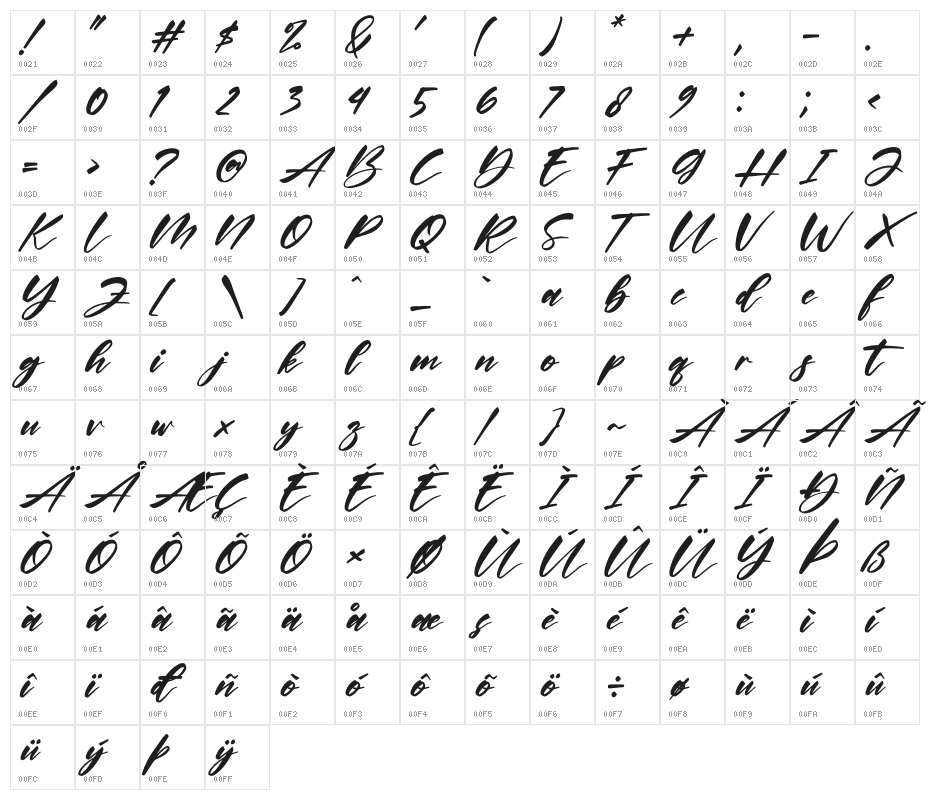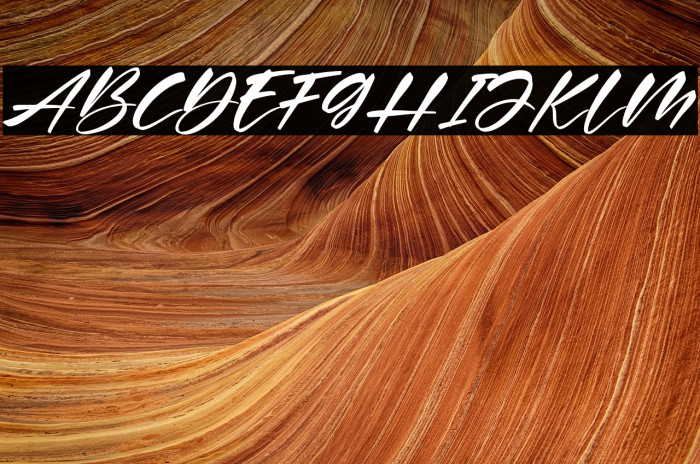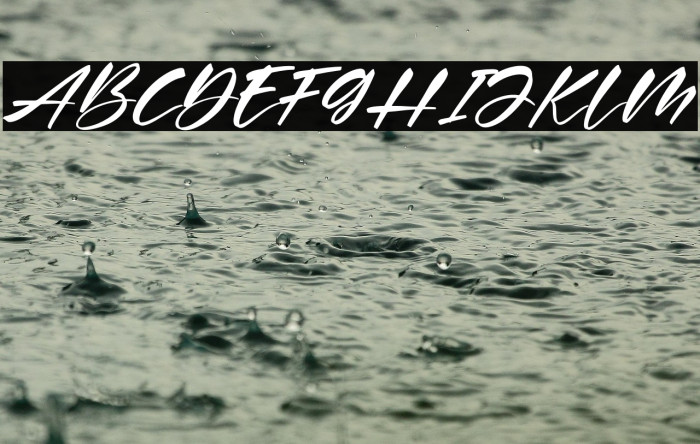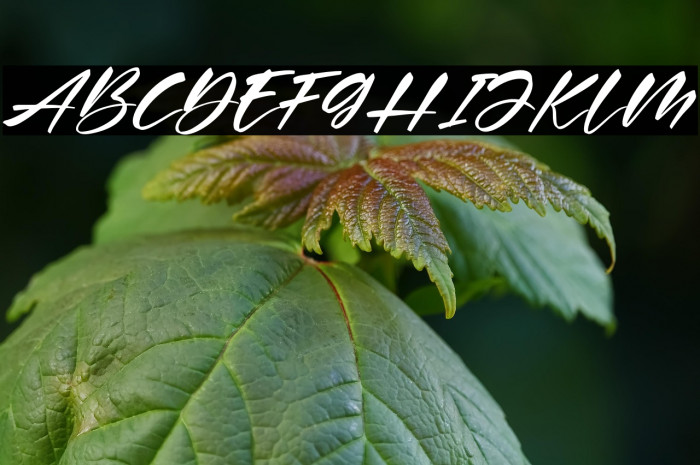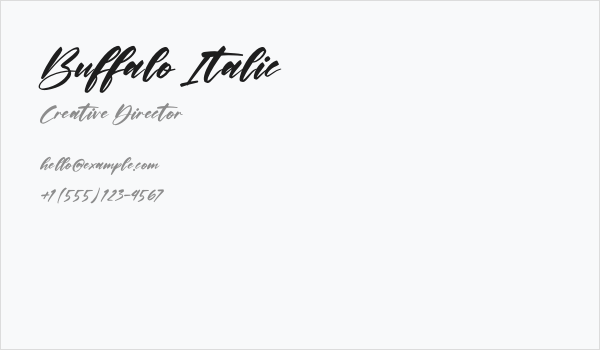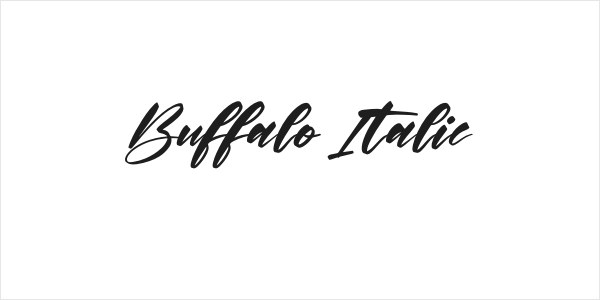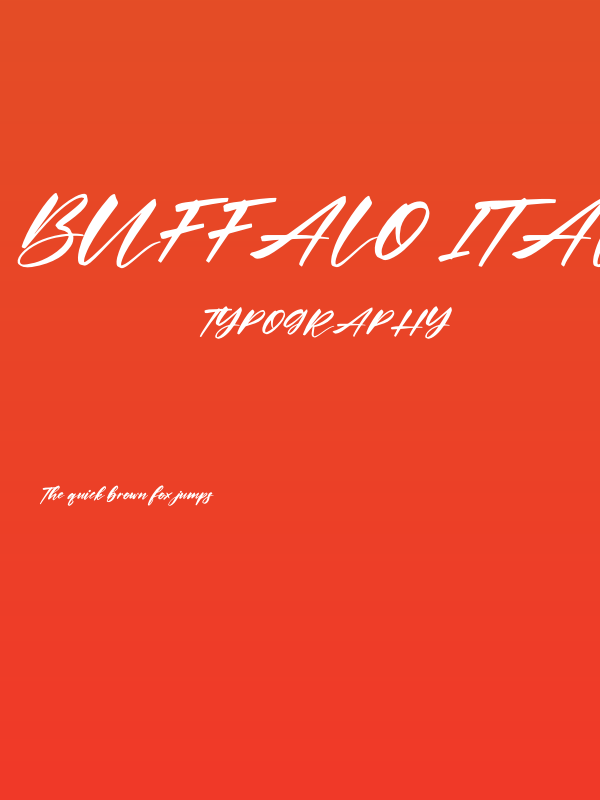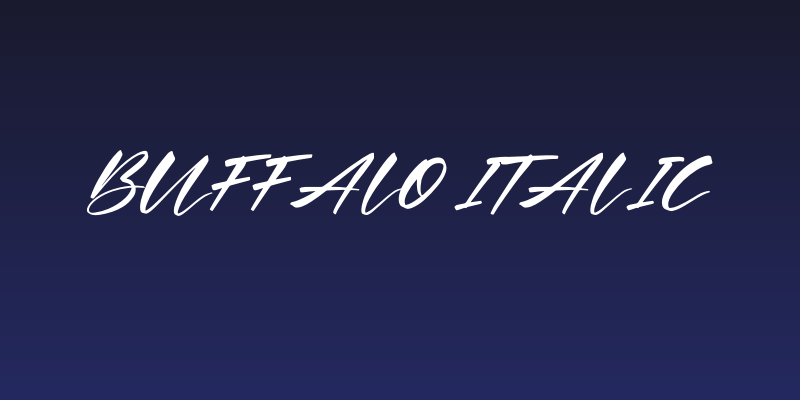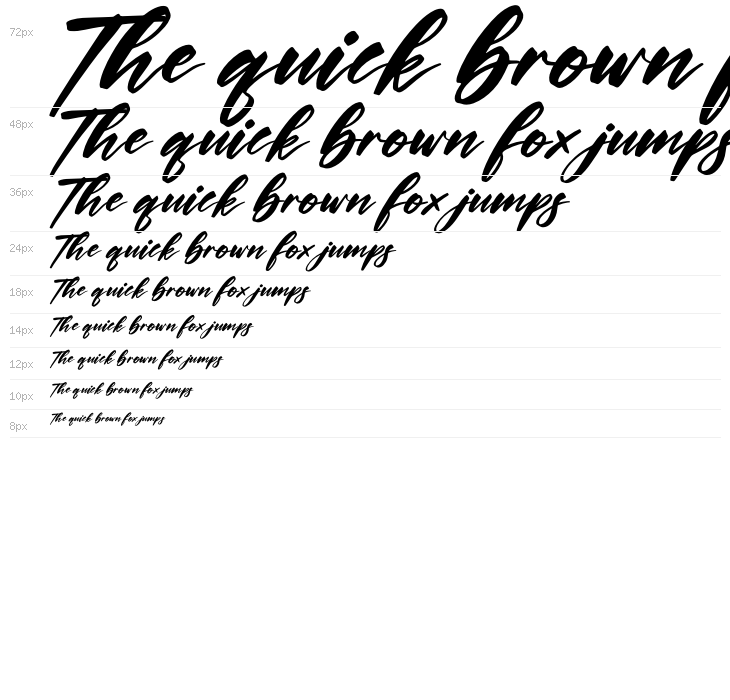
Buffalo Italic Font
Buffalo Italic Description
This font features a dynamic and flowing script style that exudes elegance and sophistication. The characters are connected in a fluid manner, creating a sense of movement and grace. The uppercase letters are bold and prominent, while the lowercase letters maintain a consistent flow, enhancing readability. The numerals and special characters are designed with the same attention to detail, ensuring a cohesive look across all elements. The overall design is both modern and timeless, making it suitable for a variety of applications.